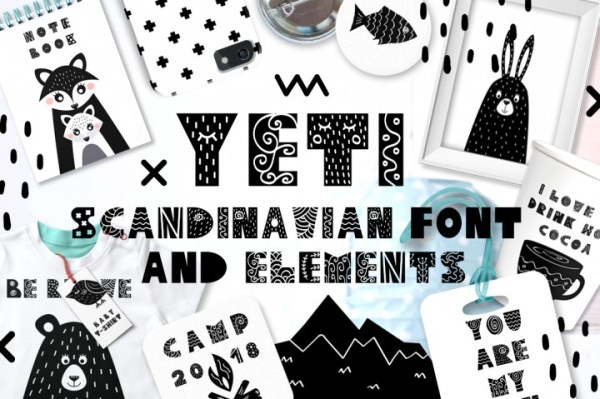
Freebie Wednesday: Yeti – Free Scandinavian Font
Yeti by Juliya Kochkanyan comes with 50 elements and 22 patterns and is free for commercial use.
Look like some really fun fonts to experiment with!